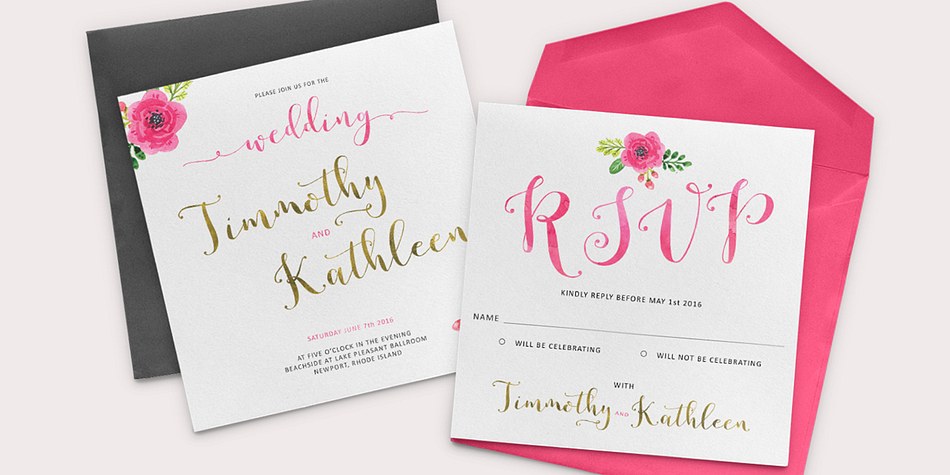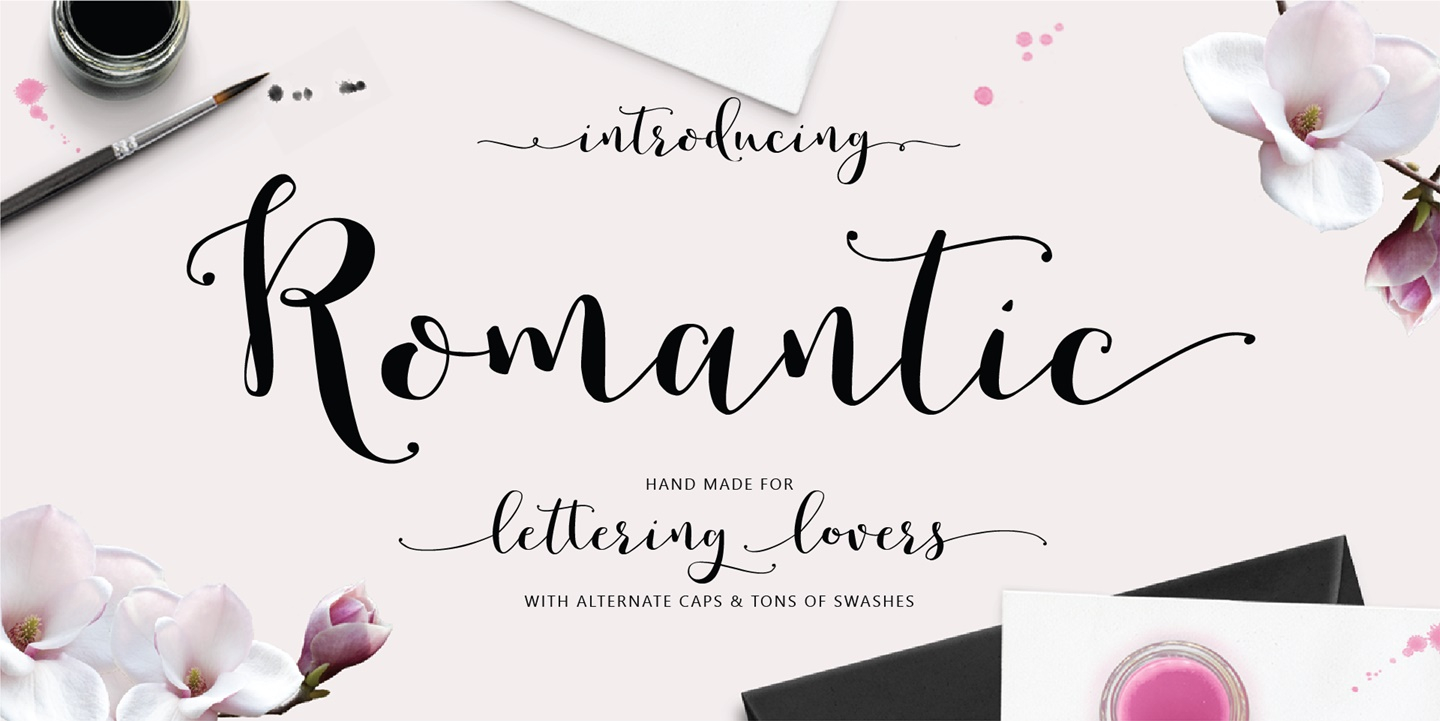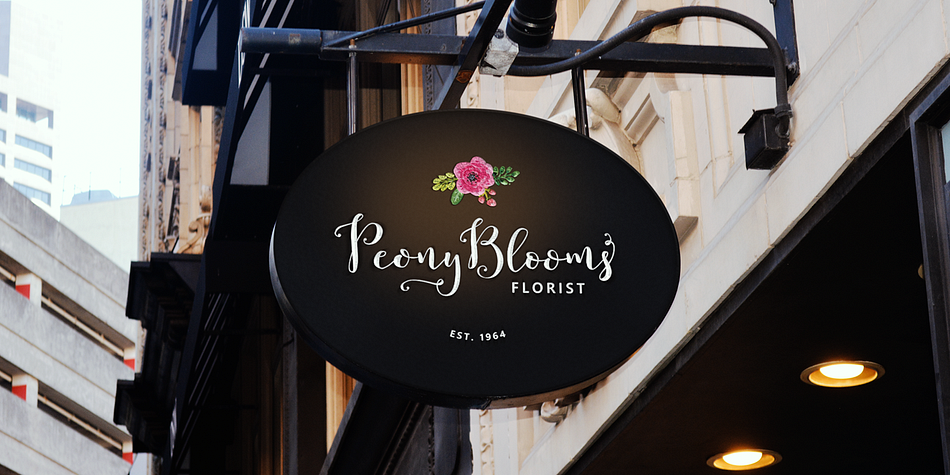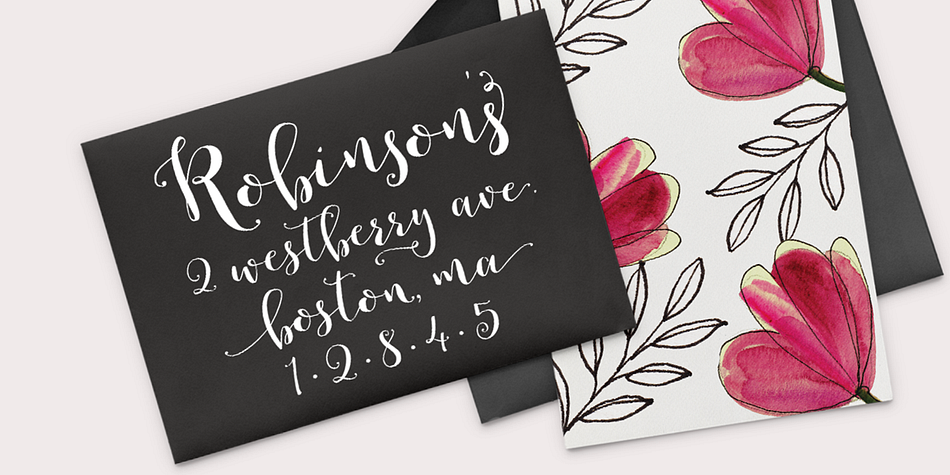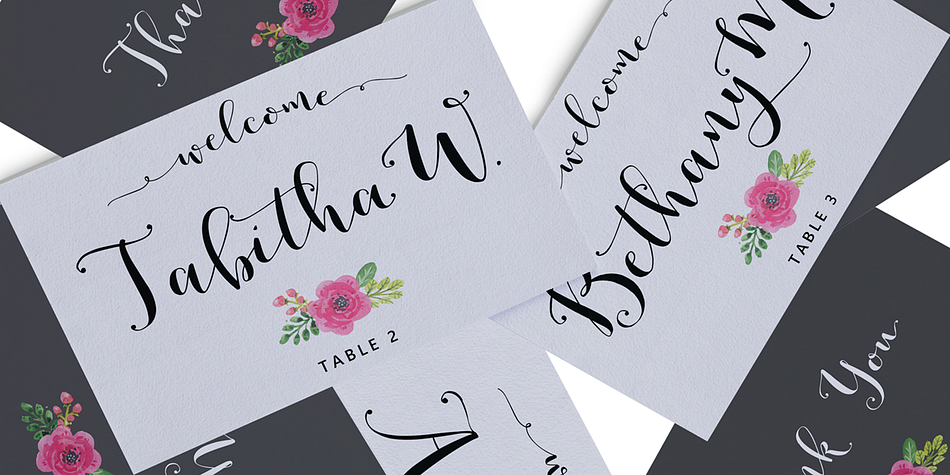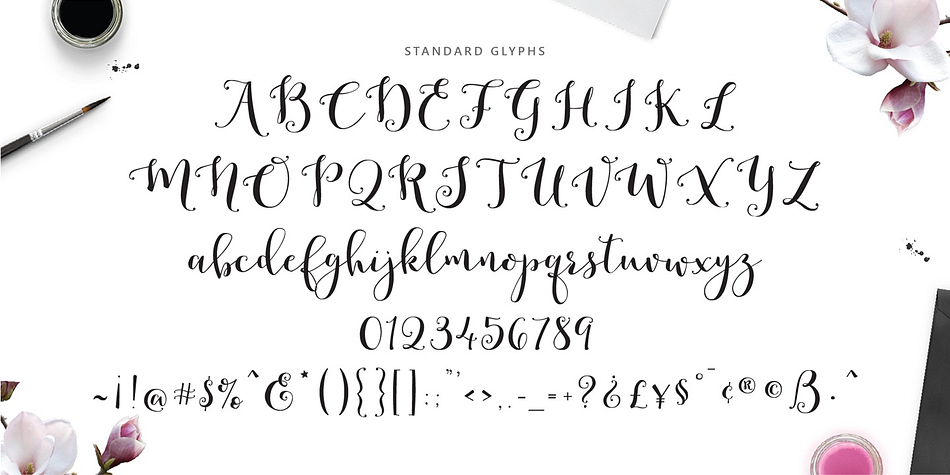
Designed by Emily Spadoni, Romantic is a script and modern calligraphy font family. This typeface has nine styles and was published by Emily Spadoni.
Hey there Lettering Lovers! Introducing Romantic Script.
This sweet feminine script is packed with more than 1800+ characters! Font lovers will have so much fun, and everything you create will be a completely unique work of art.
The combinations are endless. A variety of short to long swashes makes this script completely adaptable to all occasions.
12+ Lower-case styles
Alternate Upper-case
Standard Ligatures
Stylistic Common Letter Combinations
Multi-lingual Glyphs Complete with swashes
(Latin-1 Supplement)
ÀÁÂÃÄÅÆÇÈÉÊËÌÍÎÏÝ ÑÒÓÔÕÖØŒÙÚÛÜ àáâãäåæçèéêëìíîïñòóôõöðøœùúûüýÿ
(Latin Extended-A)
ĀāĂ㥹ĆćĈĉĊċČčĎďĐĒēĔĕĖėĘęĚěĜĝĞğĠġ ĤĥĨĩĪīĬĭĮįİıĹ弾ĿŀŃńŇňʼnŌōŎŏŐŐőŒœŔŕŘř ŚśŜŝŠšŤťŨũŪūŬŭŮůŰűŲųŴŵŶŷŸŹźŻżŽž
International and Special Punctuation